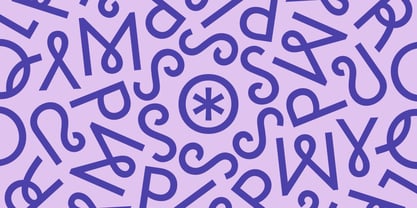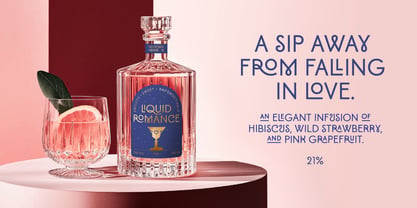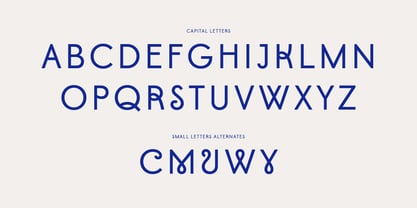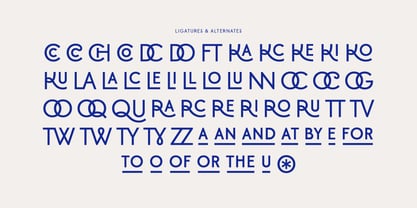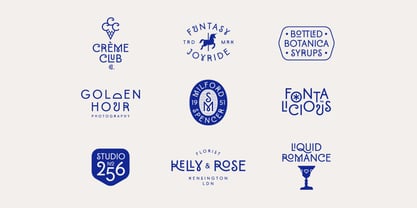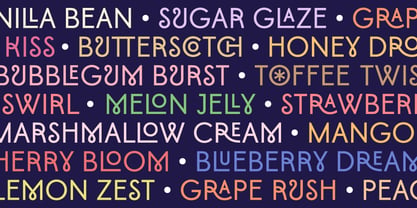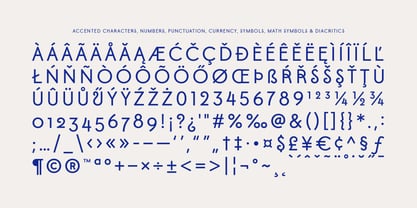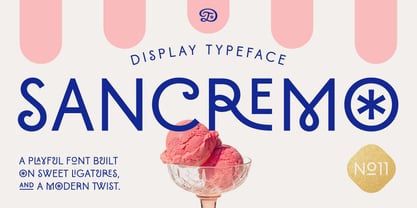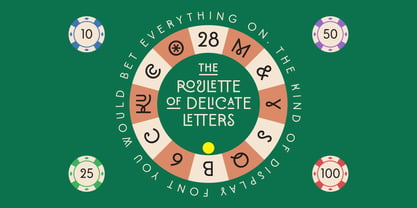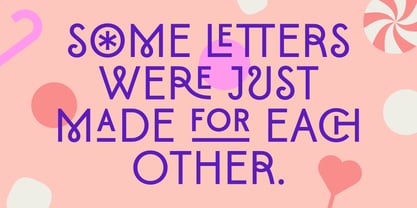
Sancremo
La famille de polices Sancremo a été conçue par Milan Pleva et publiée par Dopestype. Sancremo contient 1 styles. En savoir plus sur cette famille
Sancremo is an all-caps sans display font with a playful charm and smooth, inviting shapes. Packed with ligatures and special characters, it adds personality and sweetness to any design. Perfect for logos, headlines, packaging, magazines, or branding. This type brings a delightful touch wherever it’s used. Let your words pop with joy and style. Enjoy Sancremo!
Dopestype is a small, virtual, and independent type foundry established in 2024. It actually began in 2020 when I started working on my debut font, Creolia. Since then, I have been releasing typefaces from time to time, focusing primarily on display fonts. I love working with ligatures and alternate characters, which I like to incorporate into my fonts.